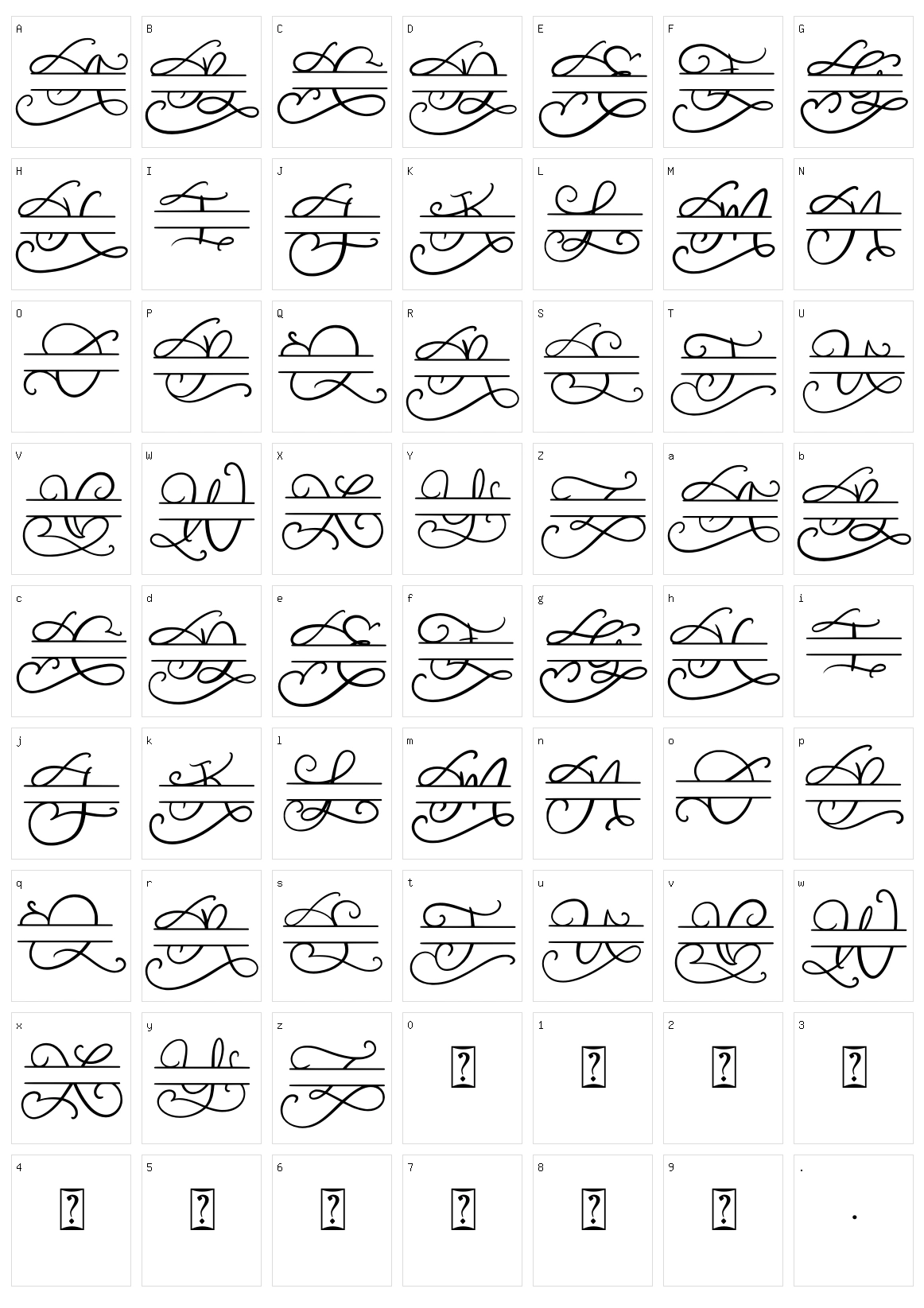
The free font Walerina Monogram is carefully designed by Abo Daniel Studio, showcasing a thoughtful balance of creativity and usability and falls under the Initials font style. When you download the ZIP file, it contains only 970.25 KB of font files, making it lightweight and quick to download. Please review the license details below to understand permitted usage and distribution rights. If license information is not available, we recommend using this font for personal projects only or contacting the author directly for commercial usage permissions.
WALERINA
- monogram & script -